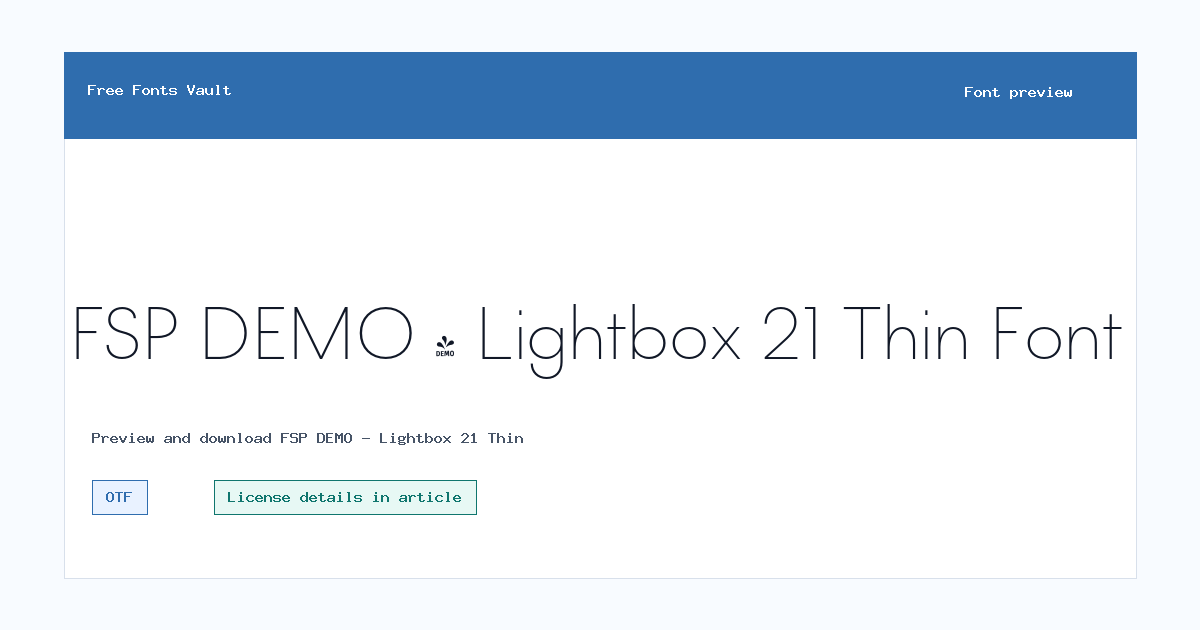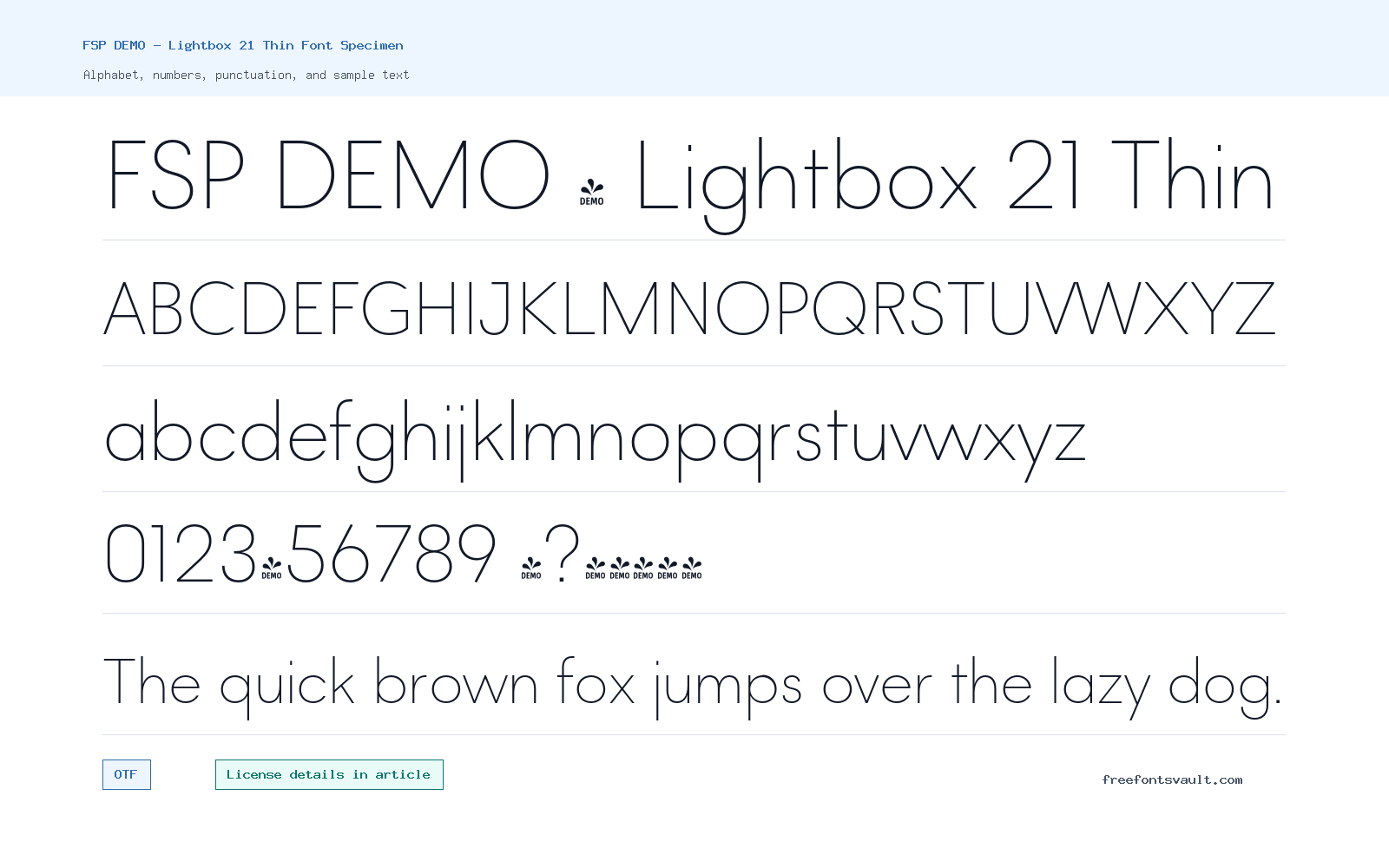
FSP DEMO - Lightbox 21 Thin
- Designer Ben Jones
- Foundry Protimient
FSP DEMO – Lightbox 21 Thin font.
FSP DEMO – Lightbox 21 Thin is a light-weight sans serif style from the Lightbox 21 family. Its thin strokes give text a clean, airy look, making it useful for previews, mockups, and short display settings where subtle typography is the goal.
About FSP DEMO – Lightbox 21 Thin
This is the kind of thin sans serif that needs careful testing. Fine strokes can look elegant in large headings, title cards, minimal branding drafts, portfolio layouts, and clean editorial mockups, but they may lose clarity at small sizes or on low-resolution screens. Try your own words in the preview box, check numbers and punctuation, and view it at the exact size you plan to use before deciding if it fits your design.
- Thin 300-weight sans serif style with a clean, light appearance
- Best suited to short text, large headings, and visual mockups rather than dense paragraphs
- Minimal headings and title treatments
- Editorial layout mockups
- Portfolio and presentation previews
- Clean poster or social graphic drafts
- Testing a light geometric-style sans serif before buying a full license
Use the preview tool with real project text, not just sample words. Thin fonts can look very different across screen sizes, browser rendering, and print output. Increase tracking only slightly, avoid very small body text, and test the font on both light and dark backgrounds if your design needs contrast-sensitive typography.
What weight is this style?
This style is listed with a 300 font weight, which is commonly used for a light or thin look.
What is this font best used for?
It is best tested in large headings, short display text, clean mockups, and editorial-style layouts. For long reading text, preview it carefully because thin strokes can reduce readability.
Who made Lightbox 21 Thin?
The font metadata names Ben Jones as the author and Protimient as the foundry.